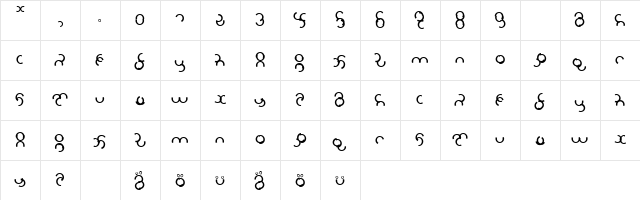
DMF studio D clear2 Medium
Design Context for DMF studio D clear2 Typeface
DMF studio D clear2 takes a measured approach to typography — its balanced proportions and neutral character make it a reliable workhorse for both digital and print work.